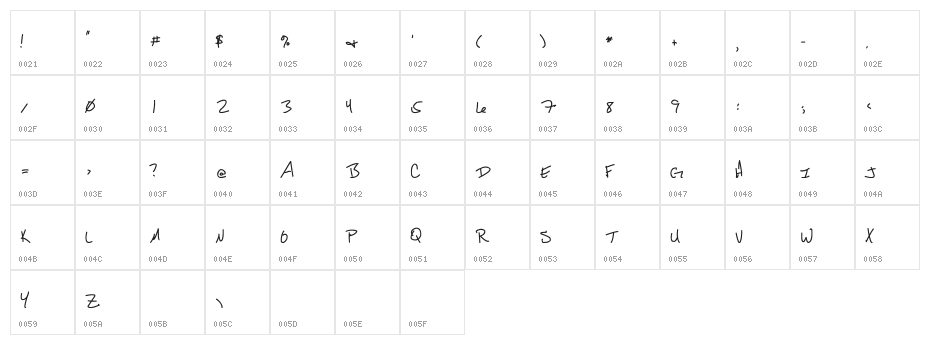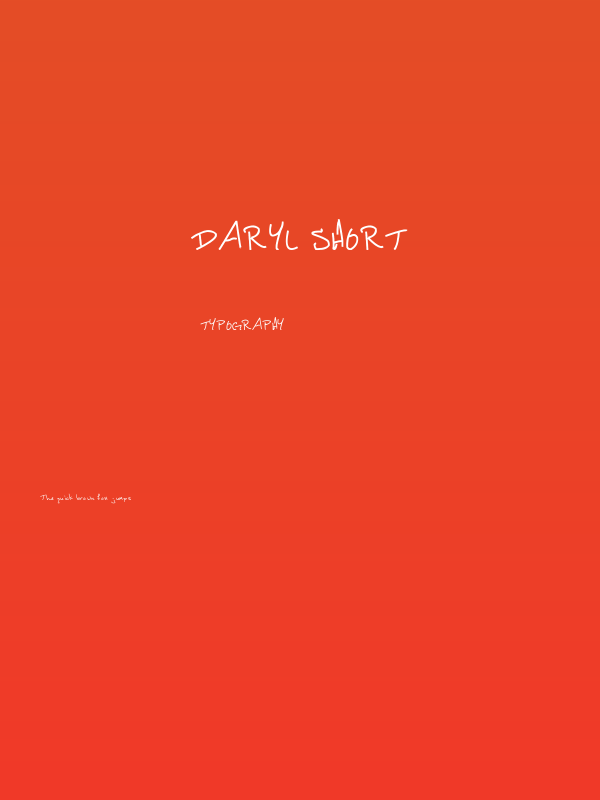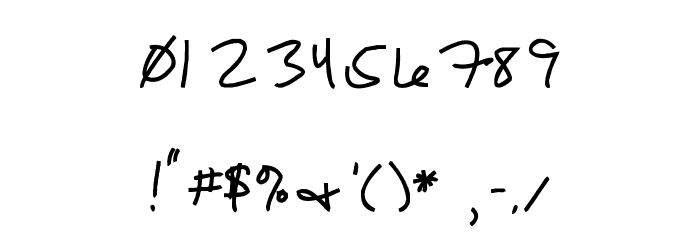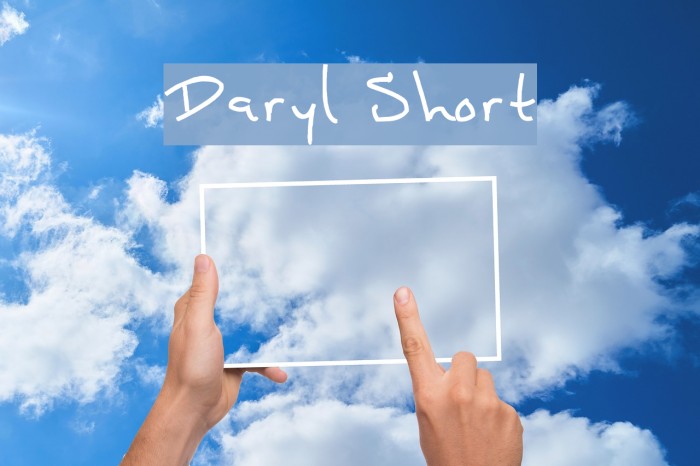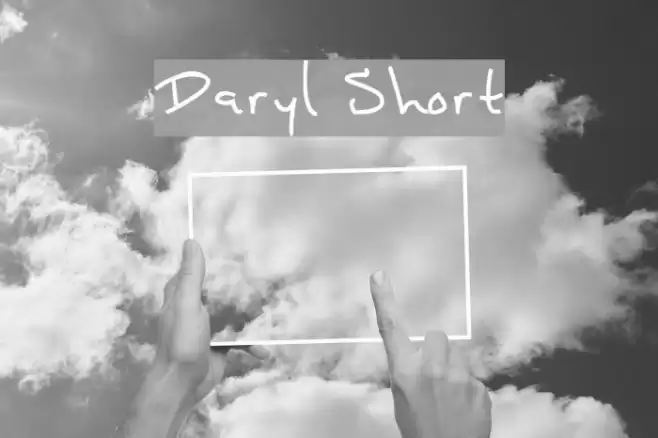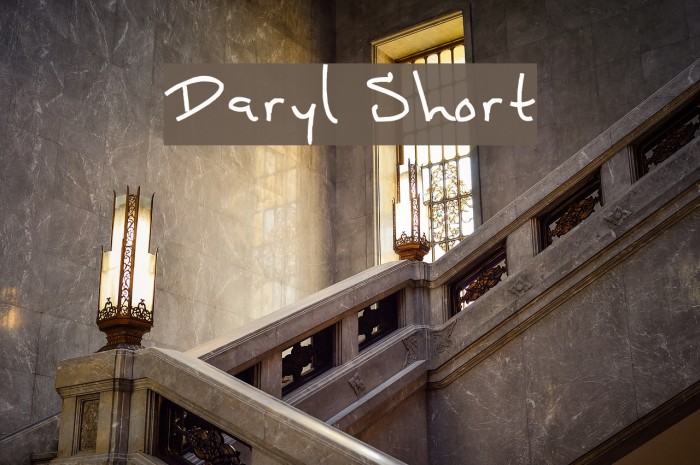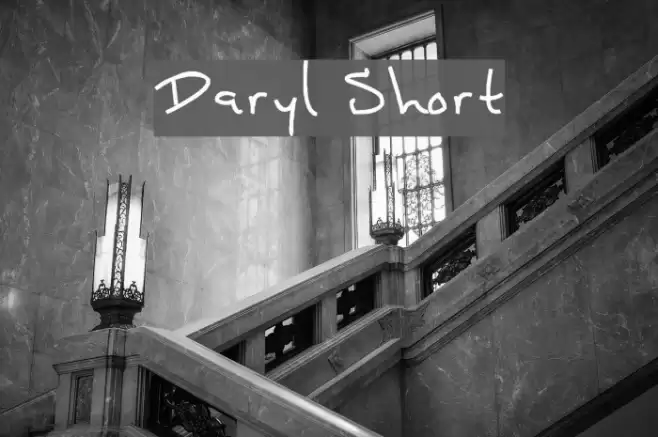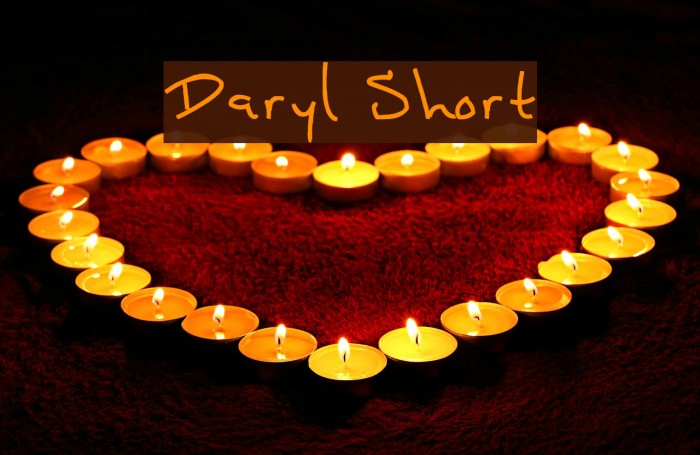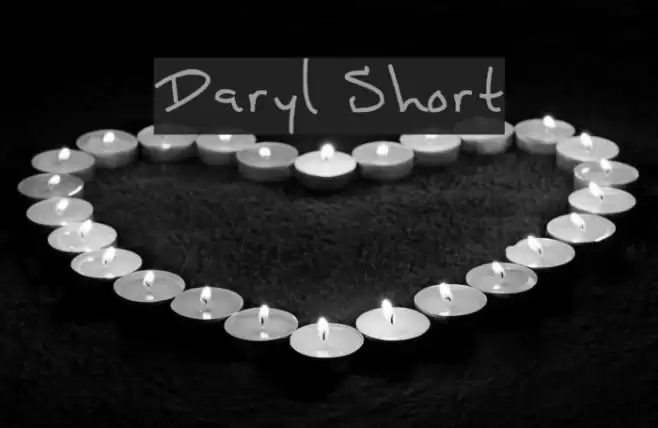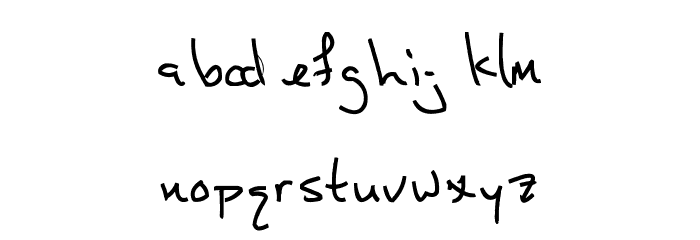
Daryl Short Font
| Категория | Decorative |
| Общий стиль | Casual, Playful |
| Область применения | Headlines, Creative projects |
| Рекомендуемые проекты | Ideal for invitations, greeting cards, artistic posters, and creative projects. |